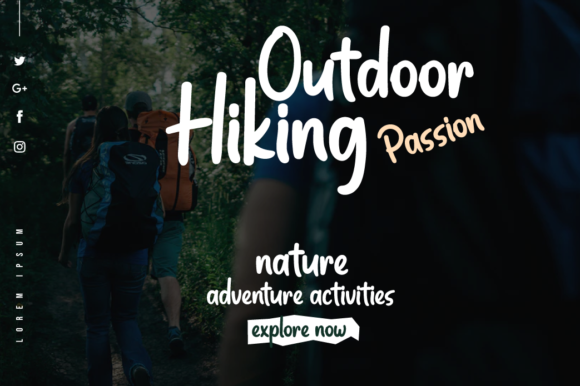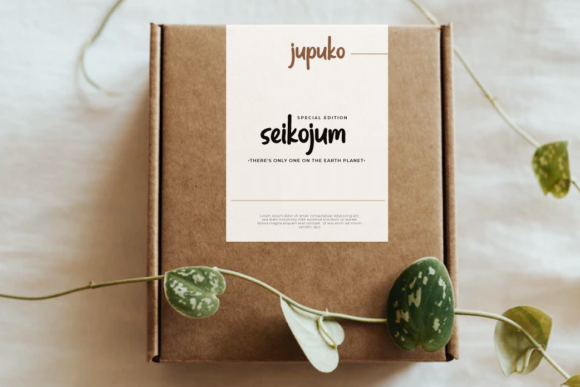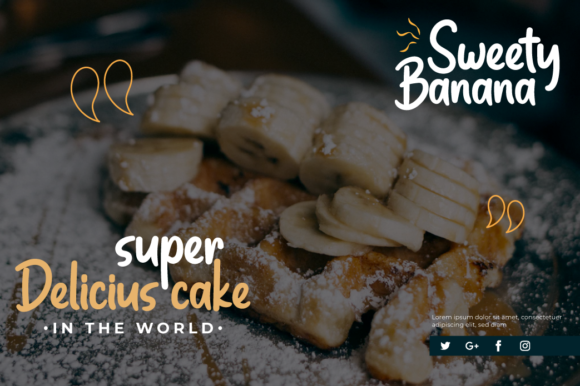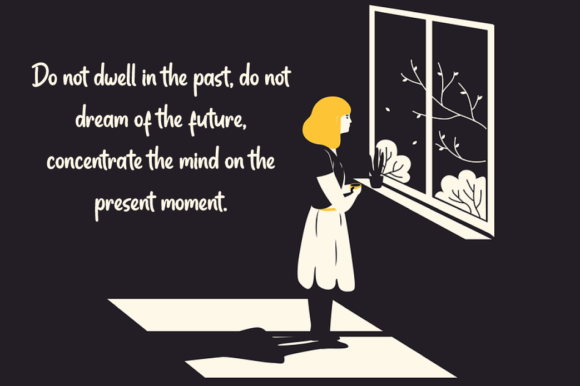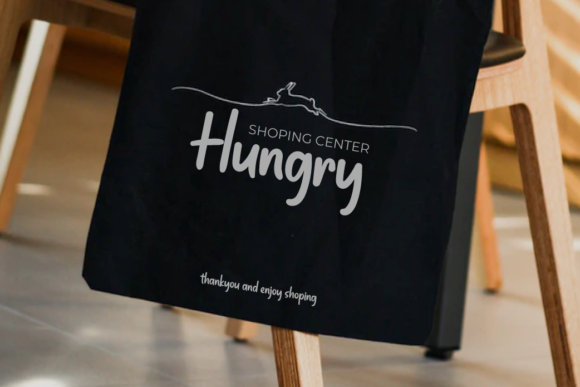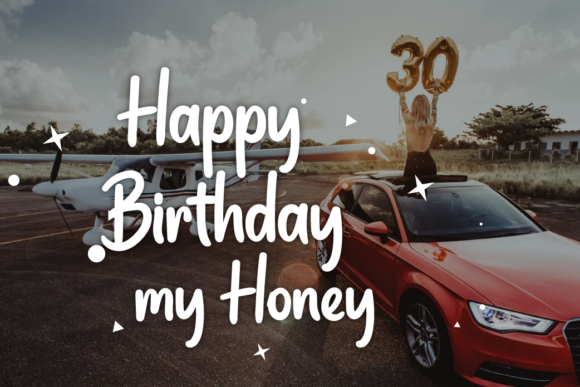
Asegunt Font: The Perfect Handwritten Companion for Designers and Crafters
In the world of typography, a font can make all the difference in the aesthetic and tone of a project. For designers, crafters, and digital artists looking for a touch of personality and flair, Asegunt Font stands out as a remarkable choice. This daring and relaxed paint brushed handwritten font is versatile and can be used across a variety of applications, from crafting and digital designing to presentations and greeting cards making.
The Charm of Asegunt Font
Asegunt Font is characterized by its unique, hand-painted look that brings a sense of warmth and authenticity to any project. Its relaxed nature makes it perfect for designs that require a personal touch, such as handmade crafts, DIY projects, and personalized gifts. The font’s daring strokes and varying line widths add a dynamic and expressive quality, making each letter and word look like it was crafted with care and precision.
One of the key advantages of Asegunt Font is its versatility. It can seamlessly fit into a wide range of projects, including:
• Crafting: Whether you’re making handmade cards, scrapbooking, or working on any other craft project, Asegunt Font adds a personal and artistic touch.
• Digital Designing: For digital artists and designers, Asegunt can be used in graphic designs, social media posts, and website headers to give a unique and personalized feel.
• Presentations: Adding Asegunt Font to your presentations can make them stand out, giving your slides a creative and engaging look.
• Greeting Cards Making: For those who love making their own greeting cards, Asegunt offers a beautiful, hand-painted style that makes every card special.
Why Choose Asegunt Font?
There are several reasons why Asegunt Font should be your go-to choice for your next project:
• Unique Style: Asegunt offers a distinctive style that is hard to find in other fonts. Its hand-painted look gives projects a personal and creative edge.
• Ease of Use: Despite its complex appearance, Asegunt Font is easy to use, even for those who are new to designing or crafting.
• Readability: Asegunt maintains a high level of readability, making it suitable for both headings and body text.
• Customization: The font can be easily customized to fit the specific needs of your project, whether it’s adjusting the size, color, or integrating it with other fonts.
Tips for Using Asegunt Font
To get the most out of Asegunt Font, consider the following tips:
• Mix and Match: Don’t be afraid to combine Asegunt with other fonts to create contrast and add depth to your designs.
• Play with Colors: The hand-painted nature of Asegunt looks great with a variety of colors. Experiment with different color schemes to find the perfect match for your project.
• Adjust Size: Asegunt Font looks great in various sizes. Make sure to experiment with different sizes to achieve the desired effect.
Asegunt Font is a versatile and stylish addition to any designer’s or crafter’s toolkit. Its unique, hand-painted look, combined with its readability and ease of use, makes it perfect for a wide range of projects. Whether you’re crafting handmade cards, designing digital content, or creating presentations, Asegunt Font can add a personal touch that makes your work stand out. So, if you’re looking for a font that combines daring strokes with a relaxed feel, Asegunt is definitely worth considering.
Embrace Asegunt Font in your next project and experience the difference a beautiful, handwritten font can make. With its charm and versatility, Asegunt is sure to become a favorite in your collection.